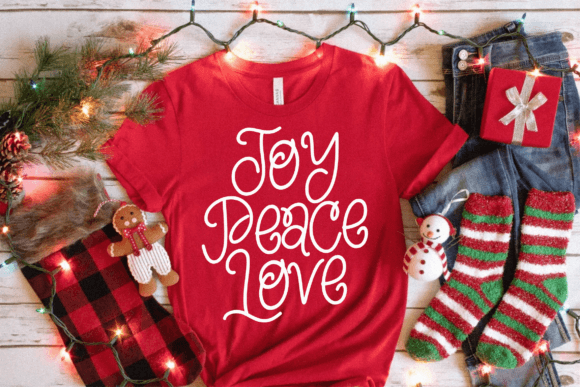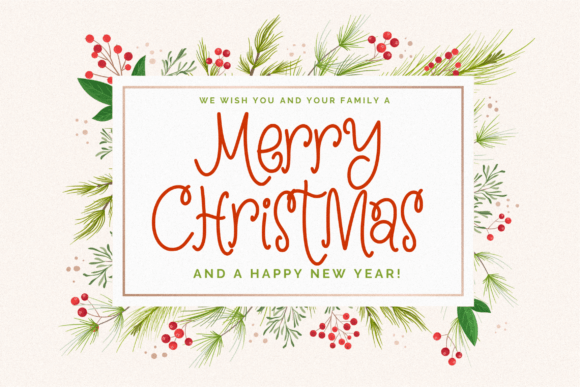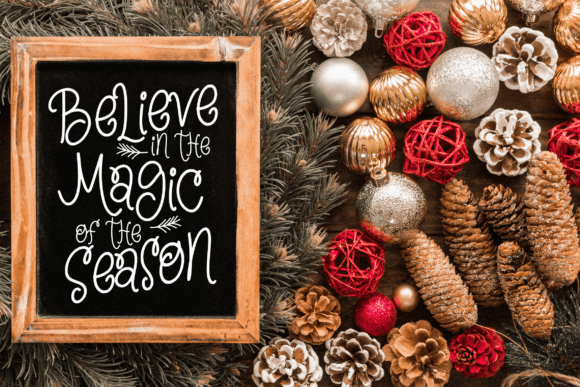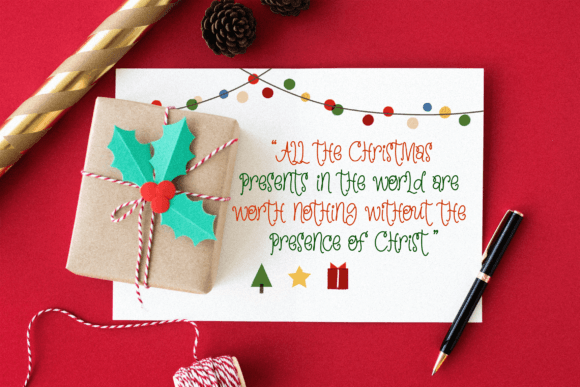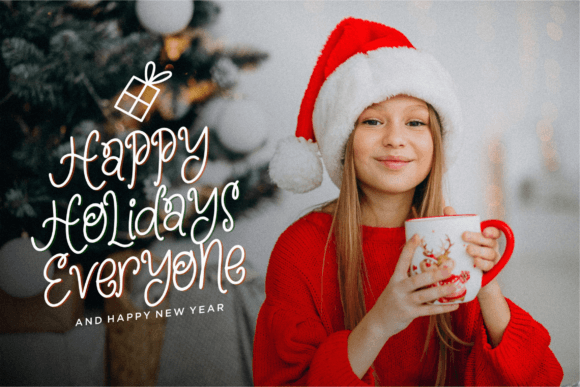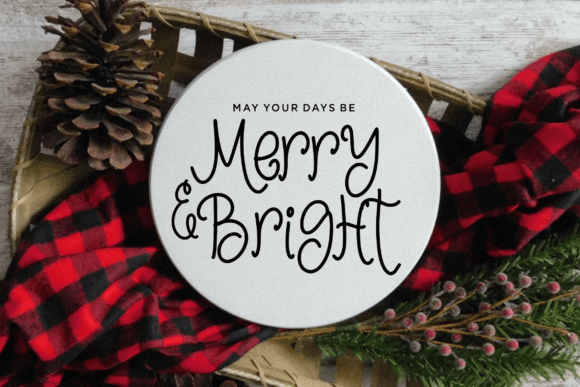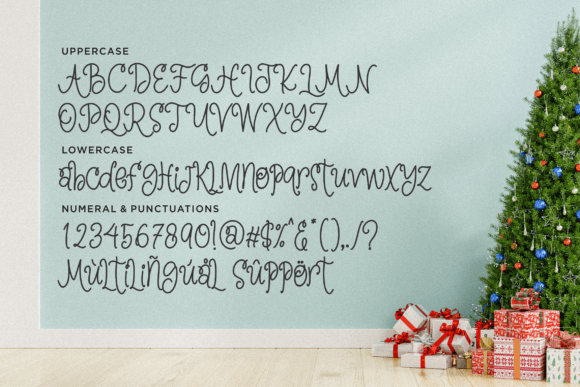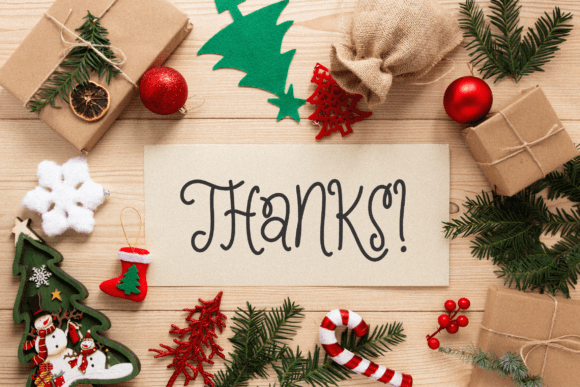
Gingerbel Font
About Gingerbel Font
Gingerbel font brings a warm and festive spirit with its charming handwritten style, designed especially for Christmas and holiday-themed projects. This font perfectly captures the cozy, joyful feeling of the holiday season, making it an excellent choice for a variety of creative applications.
Festive and Handcrafted Style
With its natural, handwritten strokes, Gingerbel font adds a personal and inviting touch to your designs. The font’s whimsical and lively character makes it stand out, ideal for conveying warmth and celebration in your holiday messages. Its handcrafted look feels authentic, adding a unique charm to every letter.
Ideal for Seasonal Packaging and Branding
Gingerbel is perfect for product packaging, especially for seasonal goods like Christmas treats, gift boxes, and festive merchandise. Its friendly and decorative style enhances branding projects, helping businesses evoke holiday cheer and attract customers during the most wonderful time of the year.
Perfect for Social Media and Magazines
Whether you are creating holiday social media posts or designing festive magazine spreads, Gingerbel font offers the right tone. Its readable yet playful appearance helps content stand out, making your seasonal promotions and greetings more engaging and memorable.
Great for Weddings and Holiday Events
In addition to commercial use, Gingerbelfont fits beautifully with holiday wedding invitations, greeting cards, and event materials. It adds a joyful, festive flair that sets the mood for celebration and togetherness during winter festivities.
Overall, Gingerbelfont is a charming and versatile Christmas handwritten typeface that brings warmth and joy to any project. From packaging and branding to social media and wedding designs, it helps your holiday creations shine with festive spirit. Add Gingerbelfont to your design collection and create magical seasonal projects that captivate and delight.